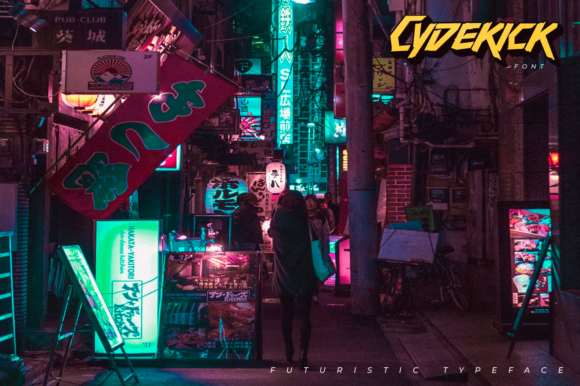
In a world of digital aesthetics, where self-expression and distinctiveness reign supreme, Cydekick Font emerges as a force of creativity, igniting an artistic revolution in the realm of T-shirt design. Born from the visionary artistry of konstantinestudio, Cydekick is not merely a font; it's an open invitation to unleash your inner rebel, to break free from the shackles of mundane typography, and to embrace the raw, unbridled energy of street art culture.
With its bold and assertive strokes, Cydekick commands attention like a graffiti masterpiece adorning the walls of a bustling urban landscape. Its characters dance and flow, exuding a sense of vibrancy and movement, as if each letter were a stroke of spray paint, capturing the essence of urban expression. Whether you're a seasoned designer or a creative enthusiast seeking to leave an indelible mark, Cydekick is your fearless companion, ready to transform your T-shirt designs into captivating works of art.
Imagine your designs adorned with Cydekick's bold presence, grabbing the spotlight on T-shirts that speak volumes. This font is more than just a visual element; it's an extension of your creativity, a vessel for your unique voice and message. Its street art-inspired aesthetic evokes a sense of authenticity and rebellious spirit, making your T-shirts stand out from the crowd. Let Cydekick be your ally in creating designs that resonate with your audience, designs that spark conversations and leave a lasting impression.
But Cydekick's versatility extends beyond T-shirt designs. Its bold and eye-catching nature makes it an ideal choice for a wide spectrum of projects, from sportswear and logos to advertisements and clothing. Its ability to command attention and make a statement knows no bounds. Unleash your imagination and let Cydekick elevate your designs to new heights, creating visual experiences that captivate and inspire.